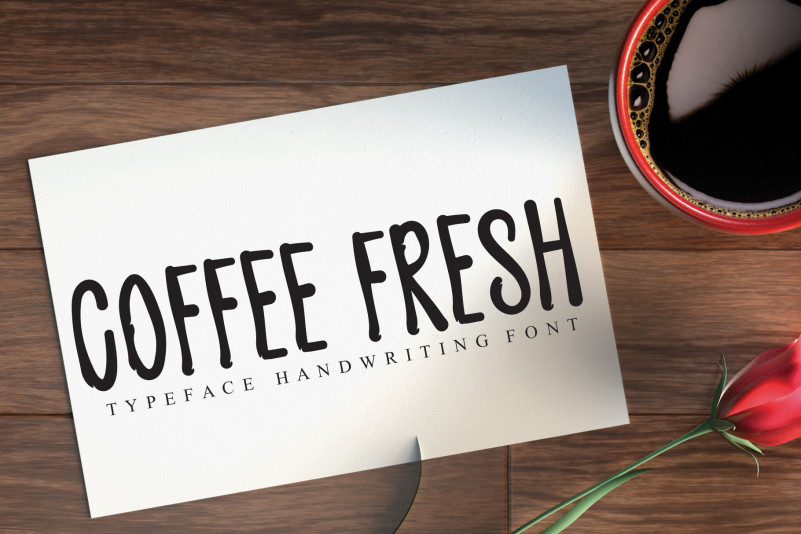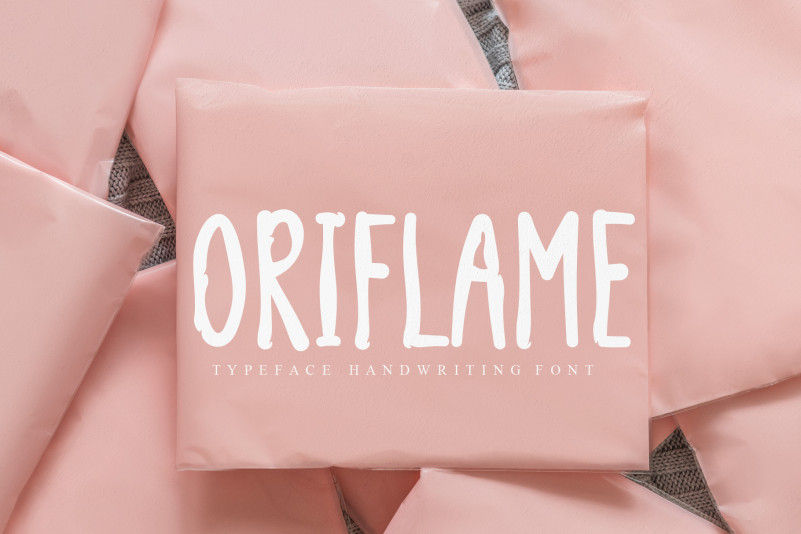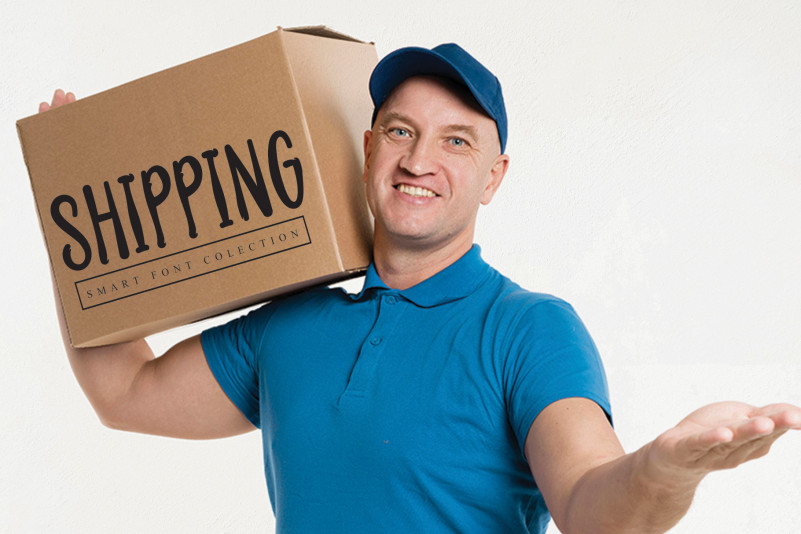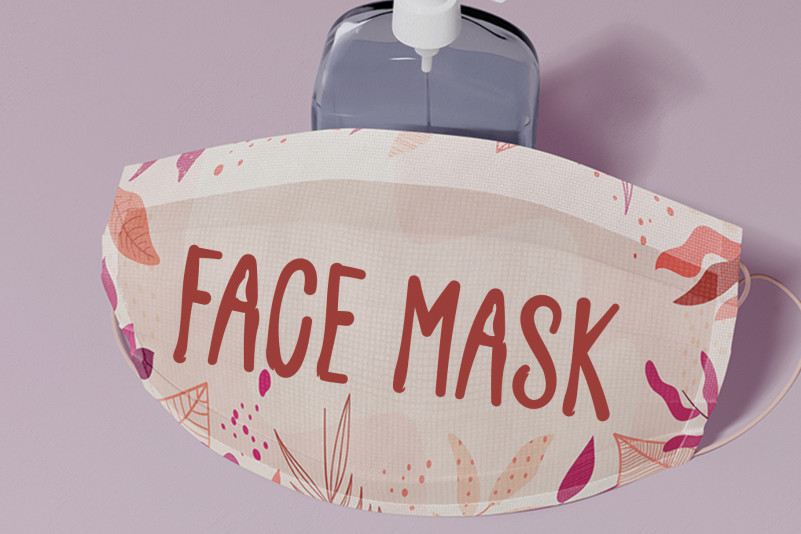
DOODLE UNIQUE Display Font
DOODLE UNIQUE Display Font is a bold and friendly display font. Add this chunky lettered font to your designs and notice how it makes them come alive!